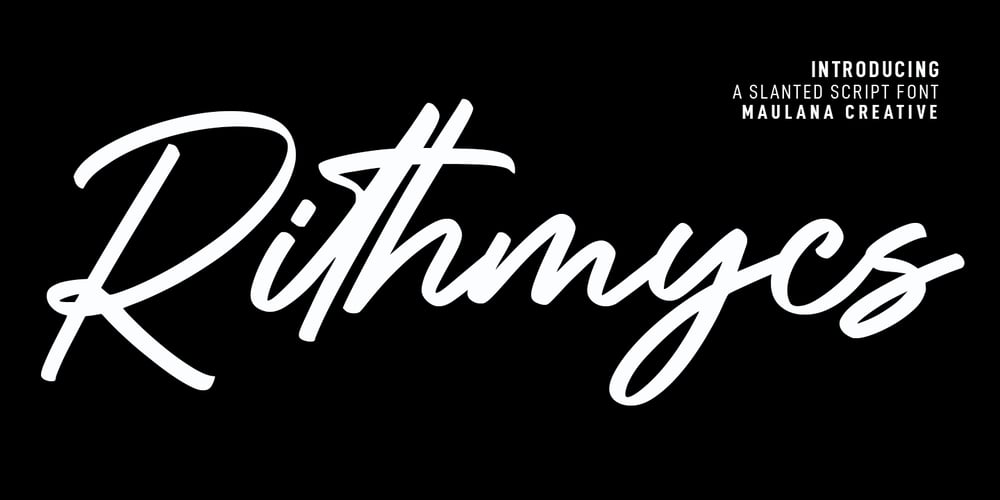
Rithmycs Font Family was designed by Gilang Maulana and published by Maulana Creative. Rithmycs contains 1 styles and family package options. Rithmycs is a fancy handwritten script font. With medium contrast stroke, fun character with a bit of ligatures and alternates. To give you an extra creative work. Rithmycs font support multilingual more than 100+ language. This font is good for logo design, Social media, Movie Titles, Books Titles, a short text even a long text letter and good for your secondary text font with sans or serif. Make a stunning work with Rithmycs font. Cheers, Maulana Creative